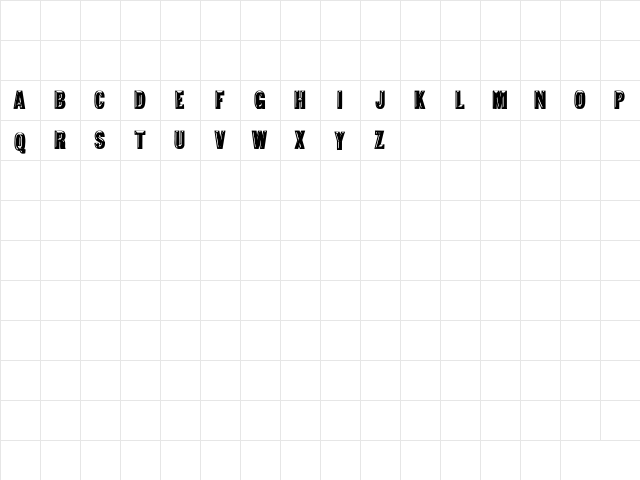
Tejaratchi Th bold Bold Font Preview
Tejaratchi Th bold Bold
Design Context for Tejaratchi Th bold Typeface
Tejaratchi Th bold is a composed and adaptable typeface that performs quietly and consistently across a wide range of design contexts. The heavy weight commands attention and anchors typographic hierarchies.